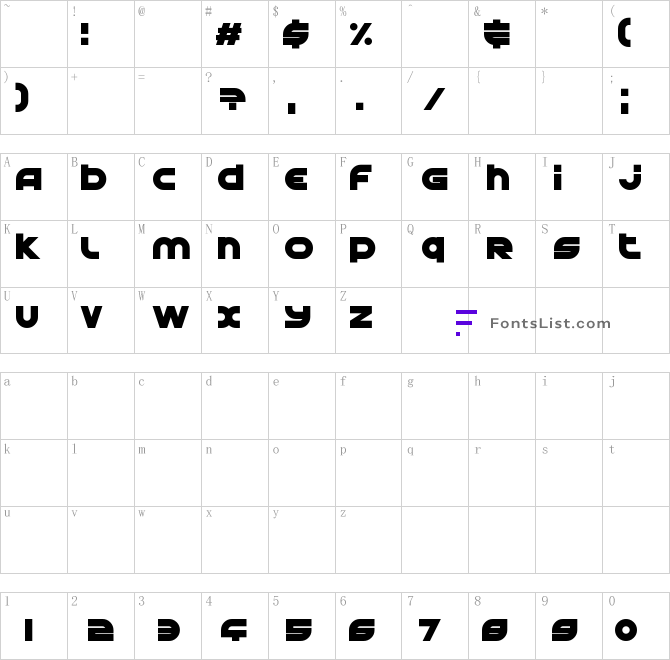
- Font Name:Astral Delight Black Upright
Astral-Delight-Black-Upright.ttf is a very beautiful artistic font, Astral-Delight-Black-Upright.ttf is widely used in the design and printing of various books and pictures,Astral-Delight-Black-Upright.ttf has a strong visual impact,Astral-Delight-Black-Upright.ttf is a commonly used font in newspapers, magazines and books, and is used in posters, e-commerce Poster design, store design, logo design, font design and other fields.Astral-Delight-Black-Upright.